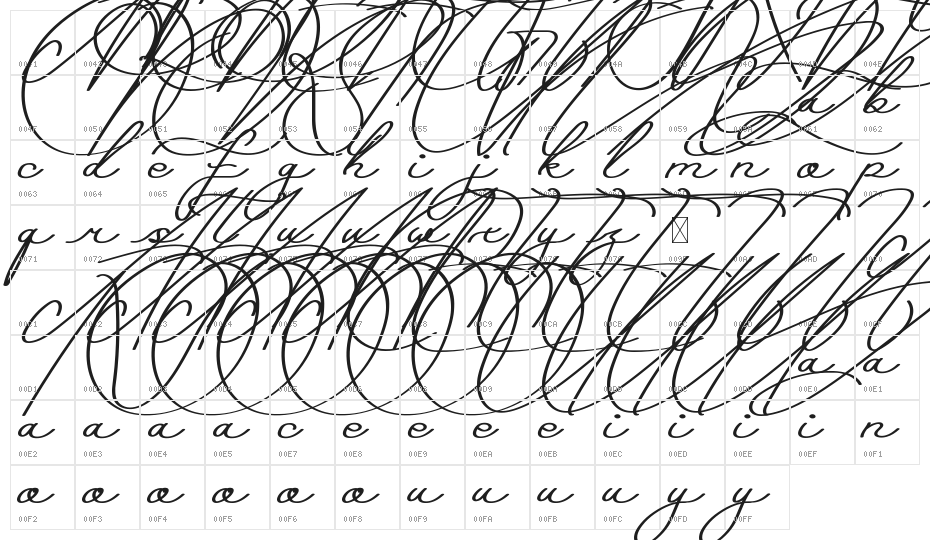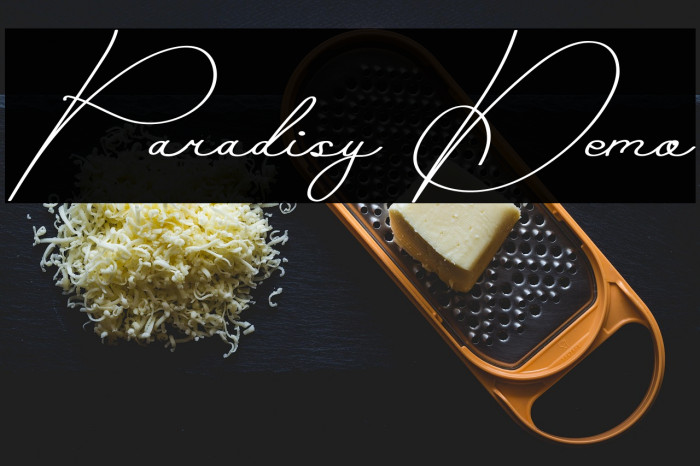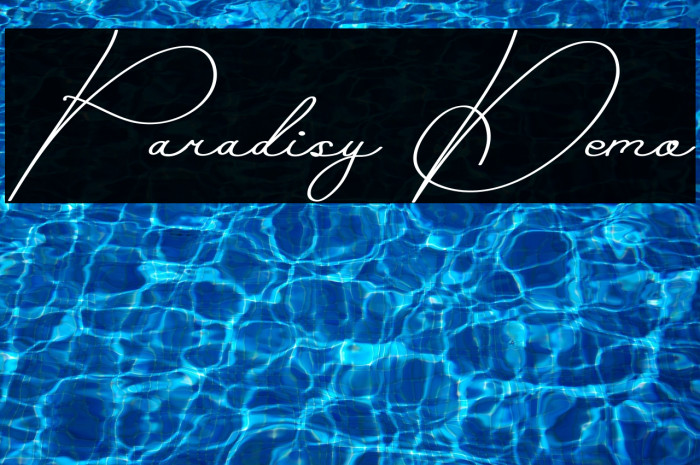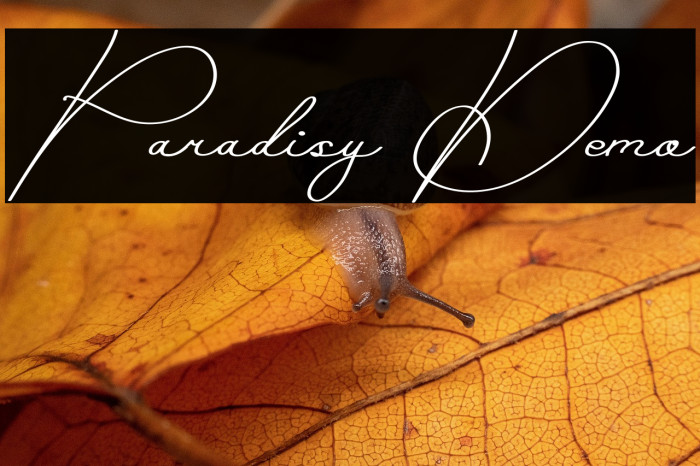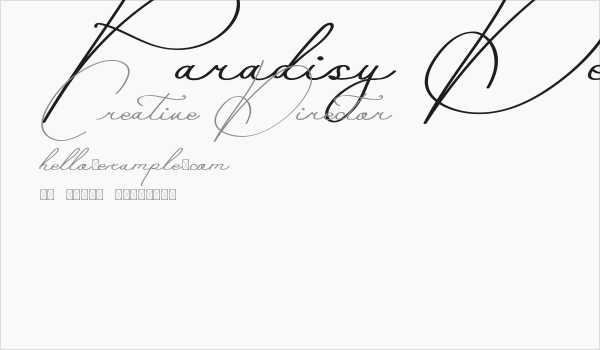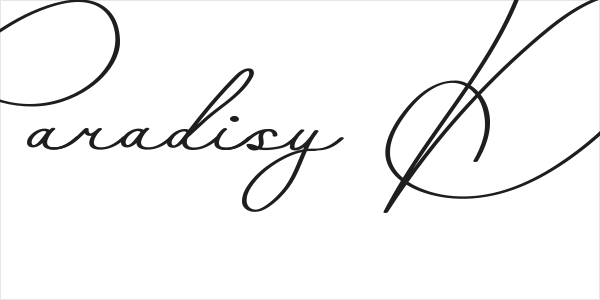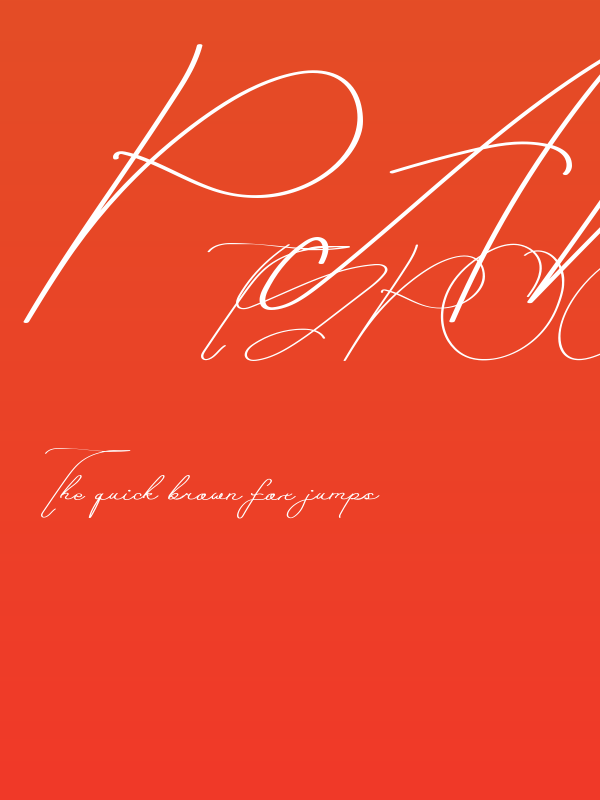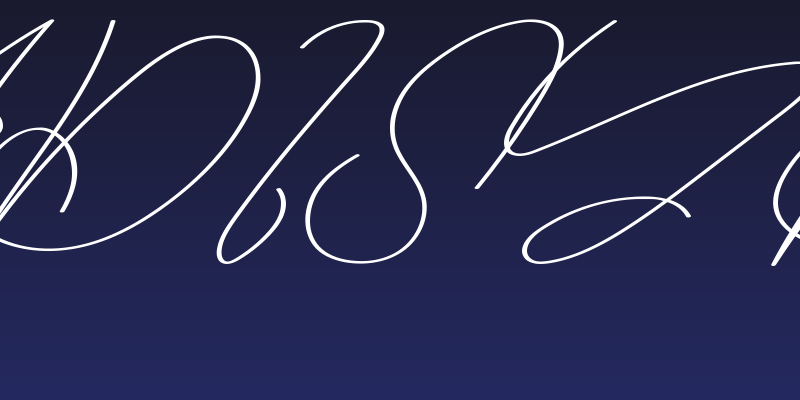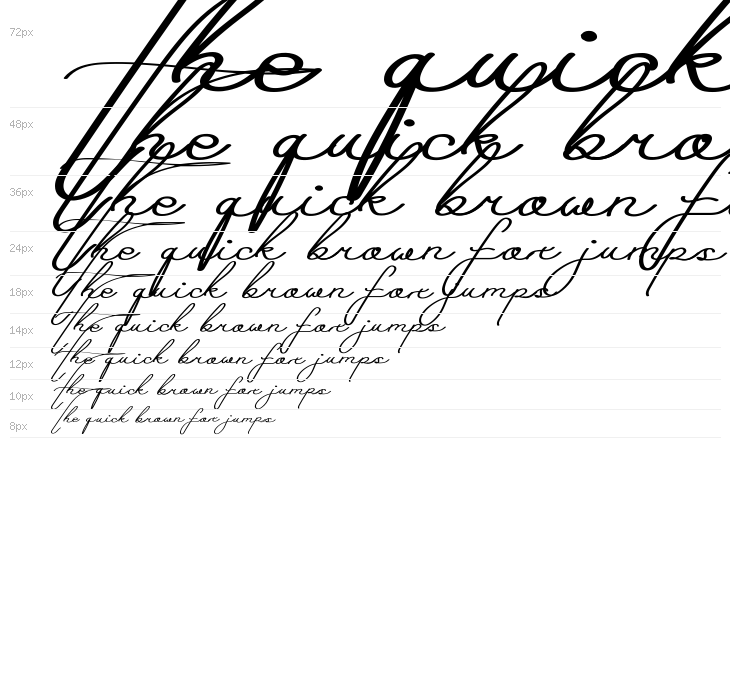
Paradisy Demo Font
Paradisy Demo Description
This elegant script font features a flowing, cursive style with delicate, interconnected letters. The uppercase characters are slender and elongated, creating a sophisticated appearance, while the lowercase letters are slightly bolder, offering a beautiful contrast. The font's graceful curves and loops give it a romantic and artistic feel, making it ideal for formal invitations, branding, and decorative purposes. The overall design is both classic and modern, with a timeless appeal that suits a variety of applications.
| Overall Style | Elegant, Romantic |
| Use Case | Invitations, Branding, Decorative |
| Proposed Projects | Ideal for wedding invitations, elegant branding, greeting cards, and decorative signage. |